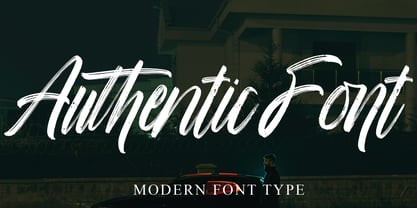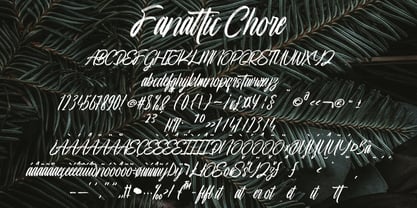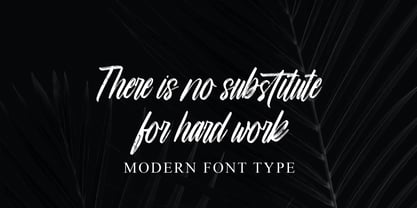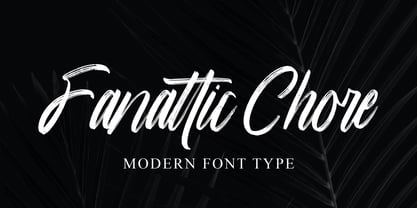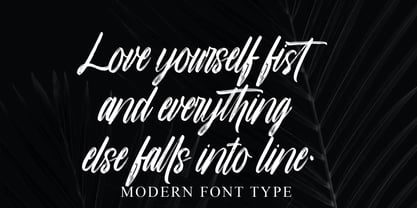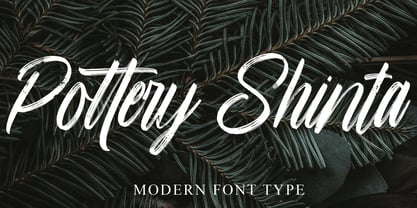
Fanattic Chore
by Naatypo
The Fanattic Chore Font Family was designed by Kurnia Elis Setyorini and published by Naatypo. Fanattic Chore contains 1 styles. More about this family
Introducing Fanattic Chore, a meticulously handcrafted font birthed from brushes and ink. This font is the quintessence of authentic craftsmanship, ringing true to traditional brush strokes, offering a bold and thick style reminiscent of deep watercolor impressions. It's an exquisite choice for an array of creative projects, including eye-catching blog titles, dynamic posters, romantic wedding elements, stylish t-shirt designs and contemporary clothing lines. Fanattic Chore is also the perfect finishing touch for book covers, business cards, and greeting cards, a font that adds a dash of aesthetic appeal to any branding initiative or merchandise. Elegance meets versatility with Fanattic Chore, making it an irresistible pick for your design needs.
Designers: Kurnia Elis Setyorini
Foundry: Naatypo